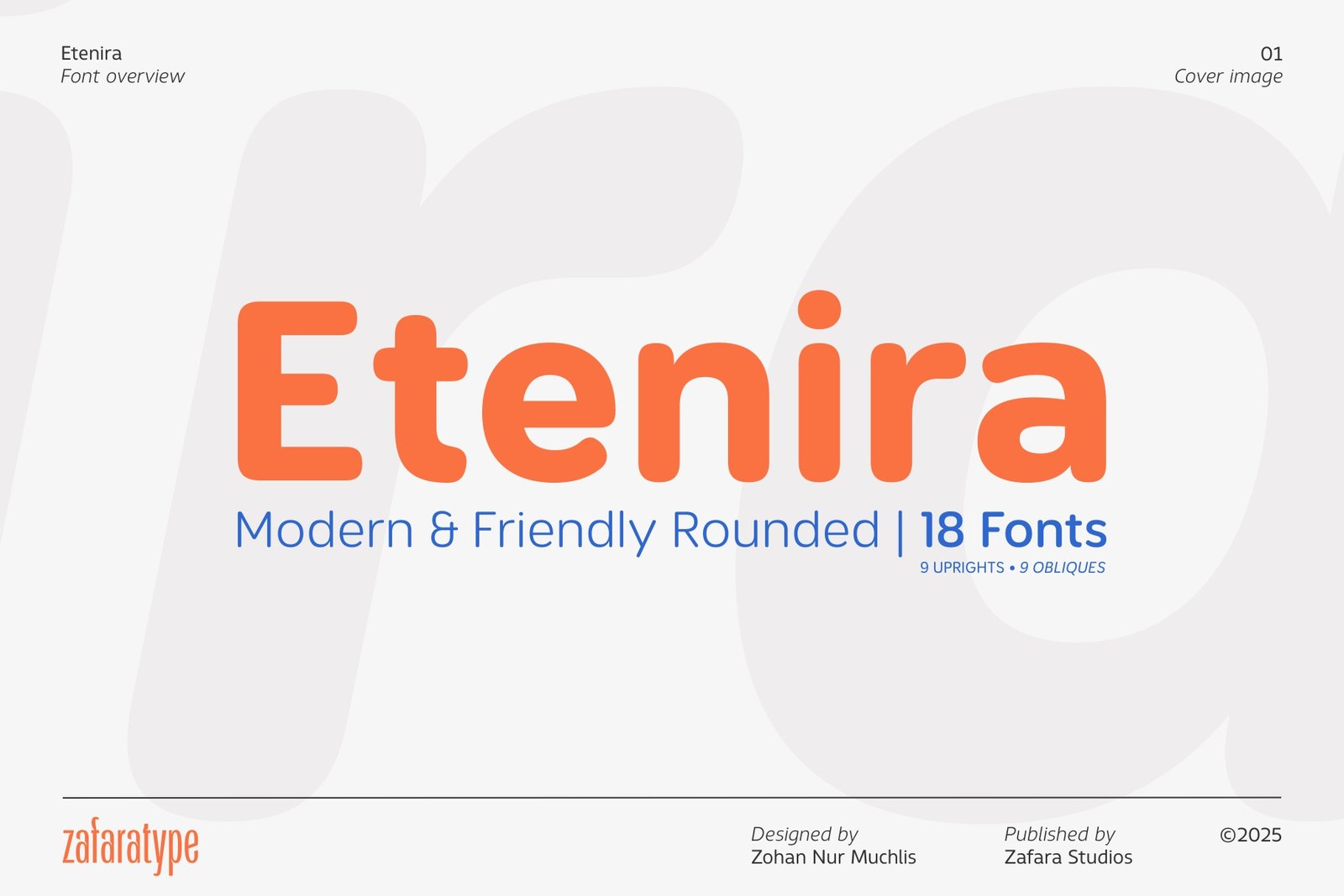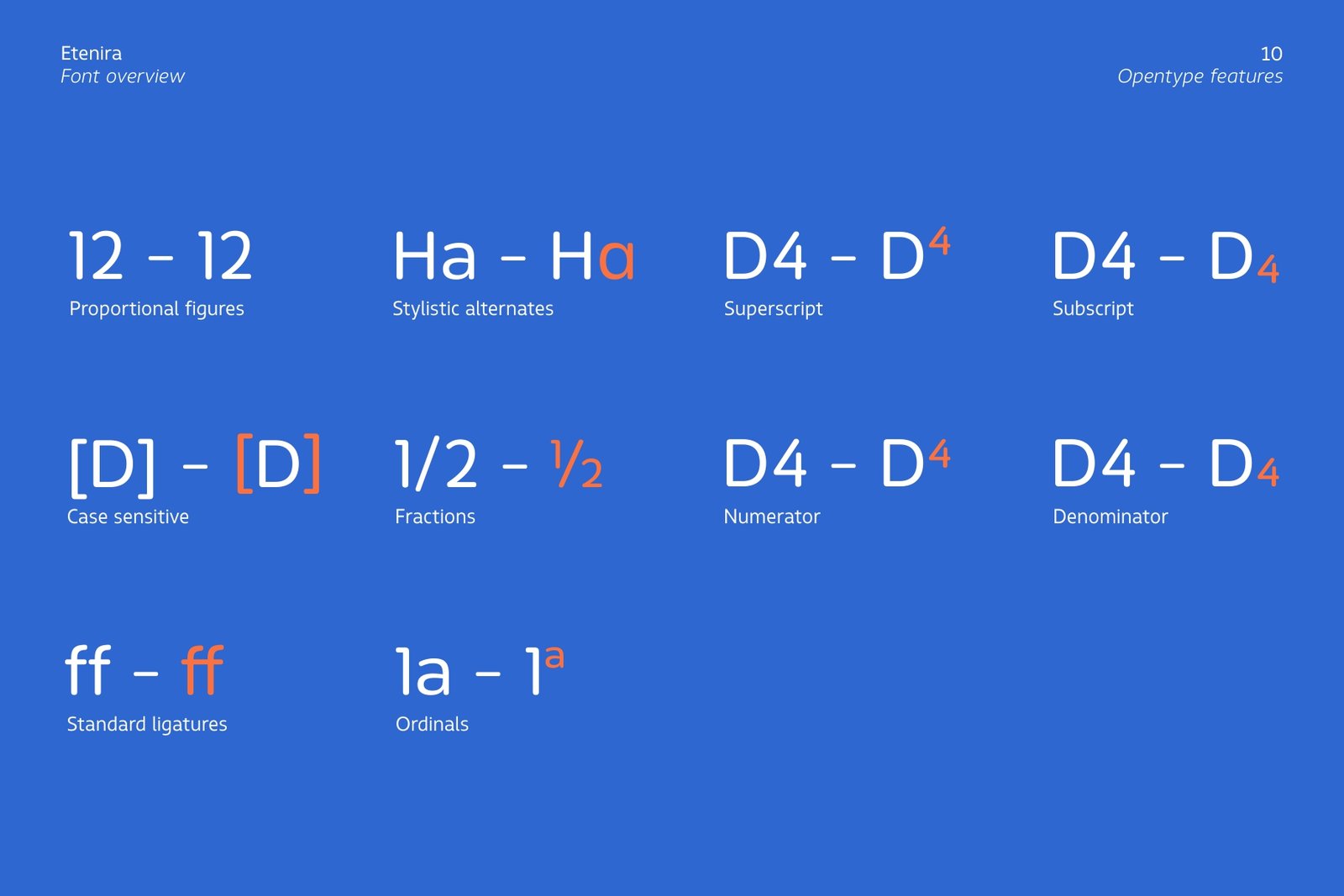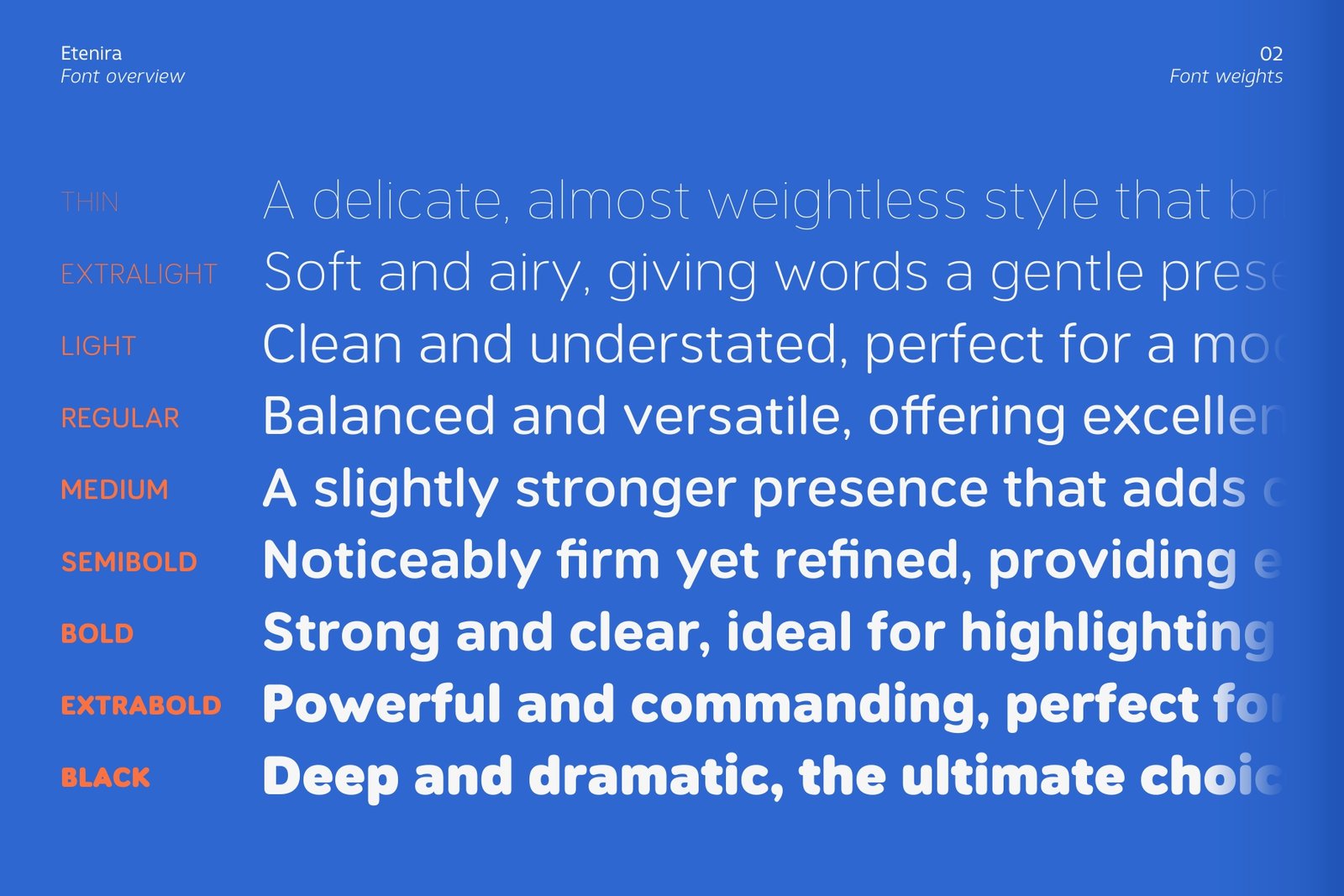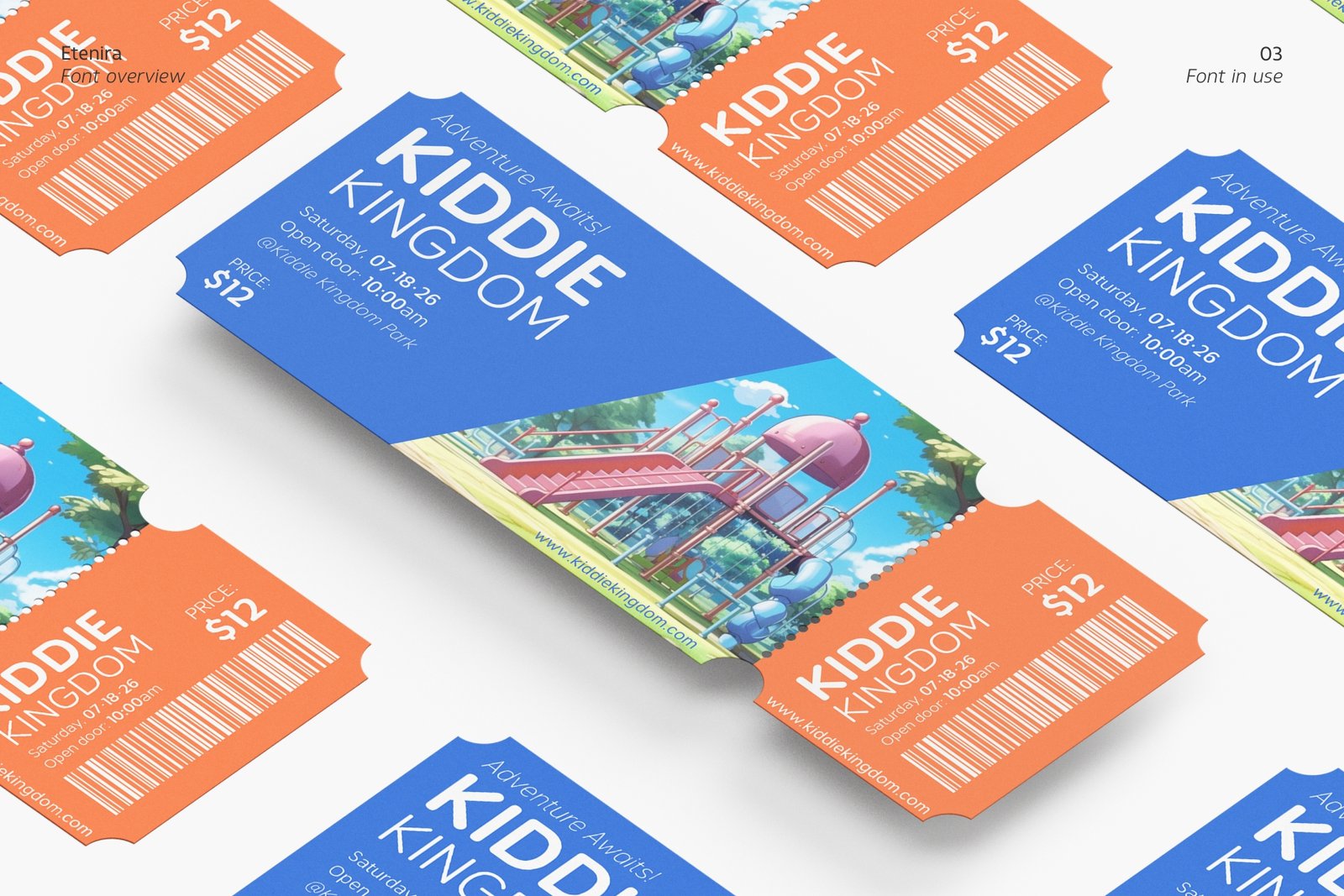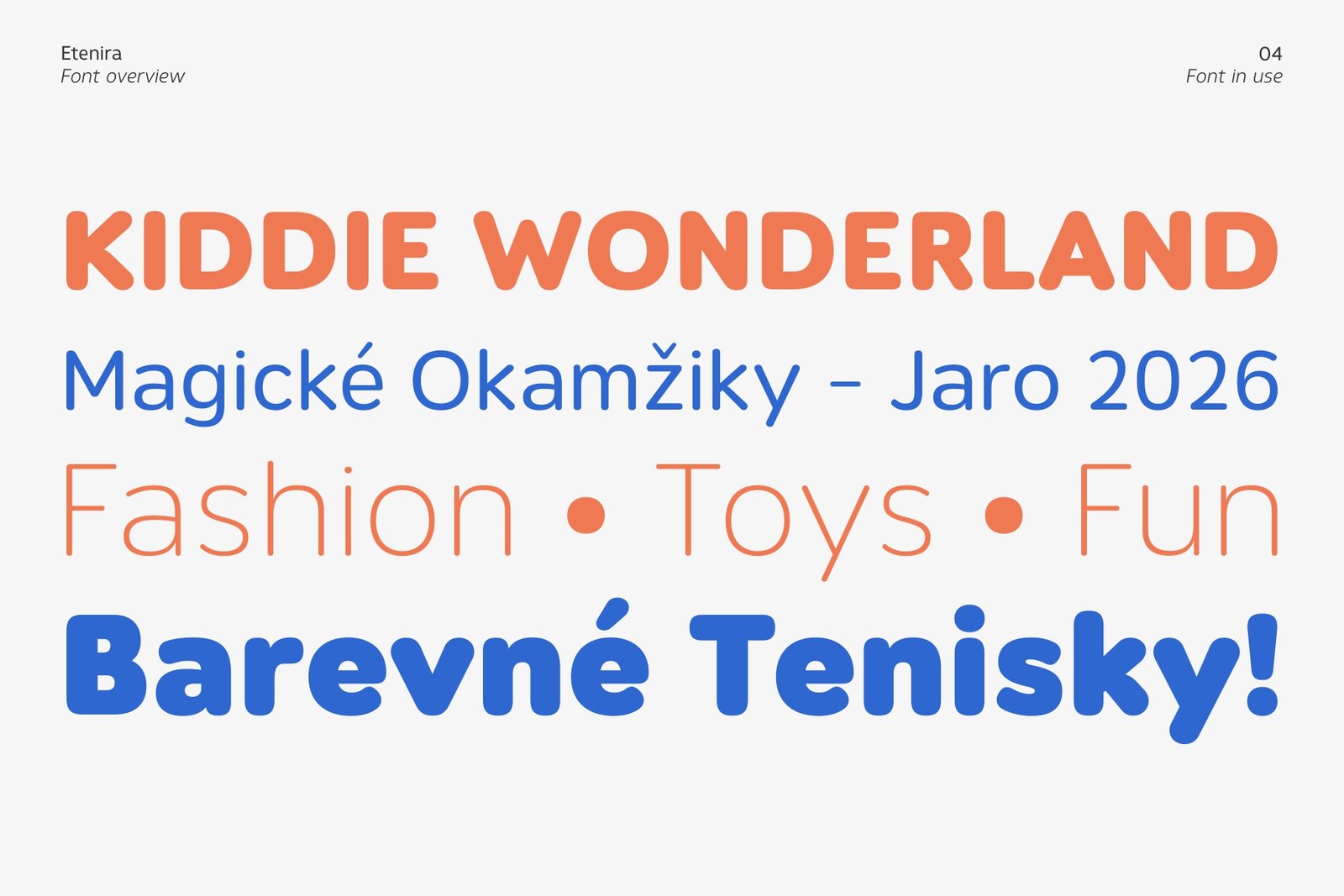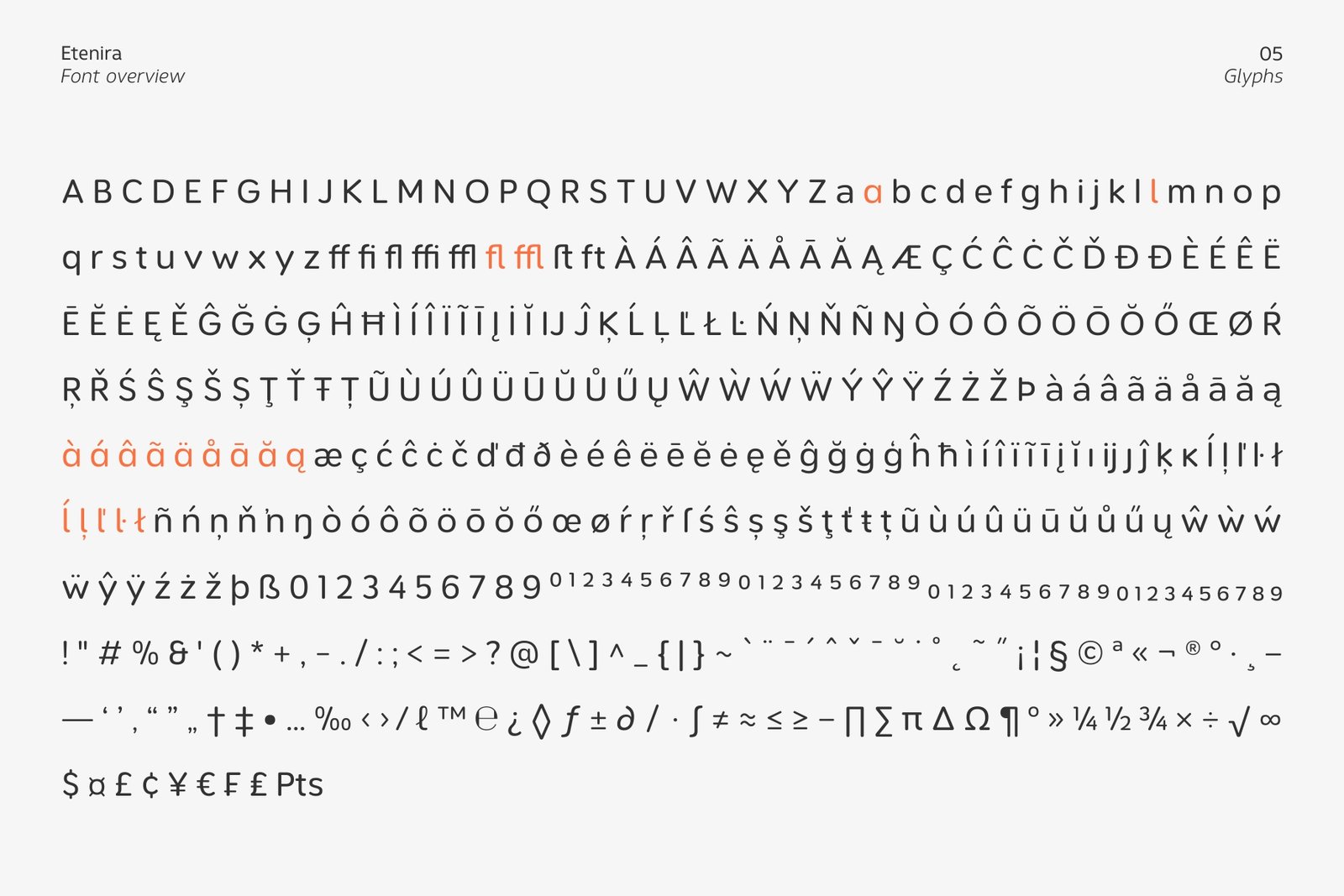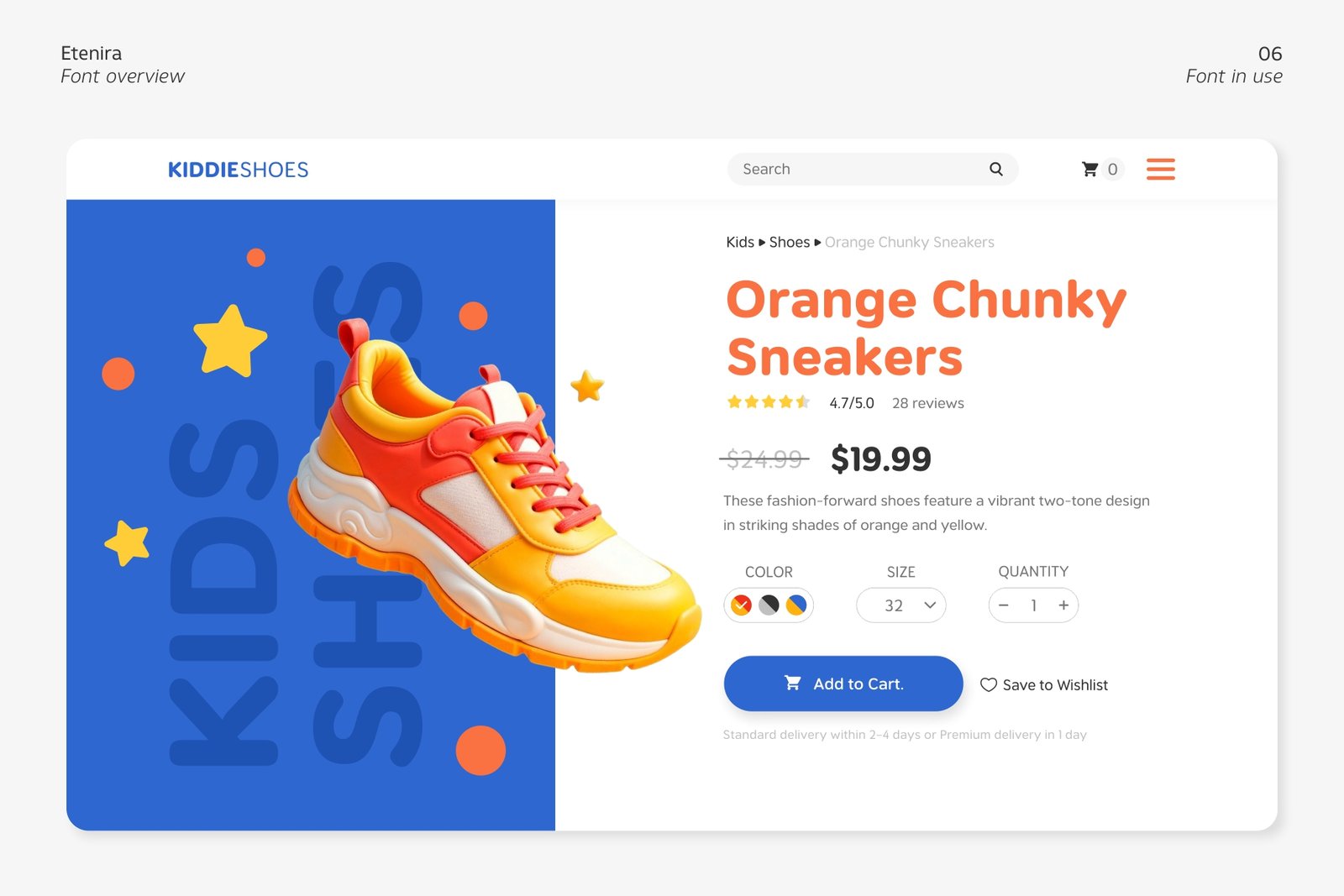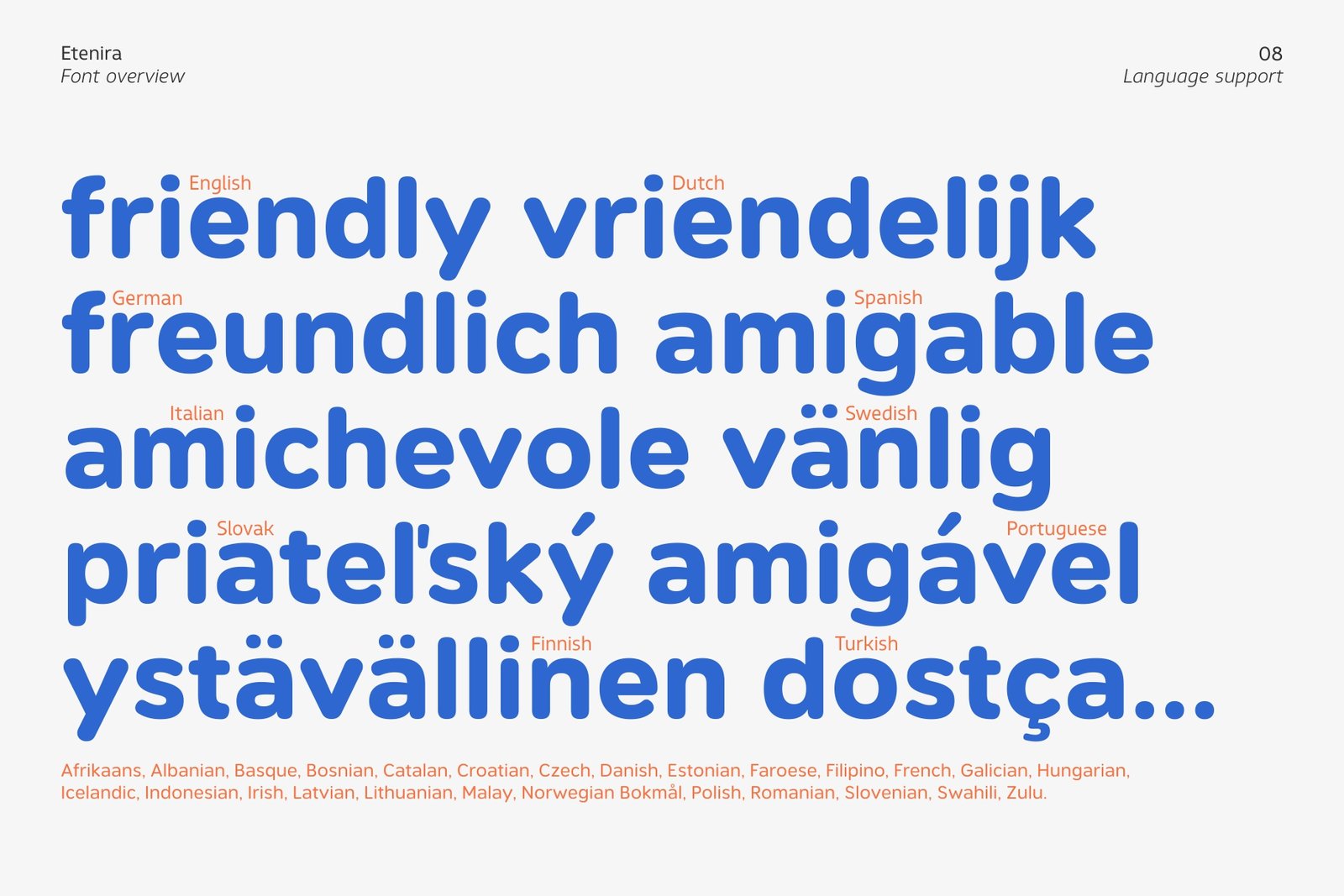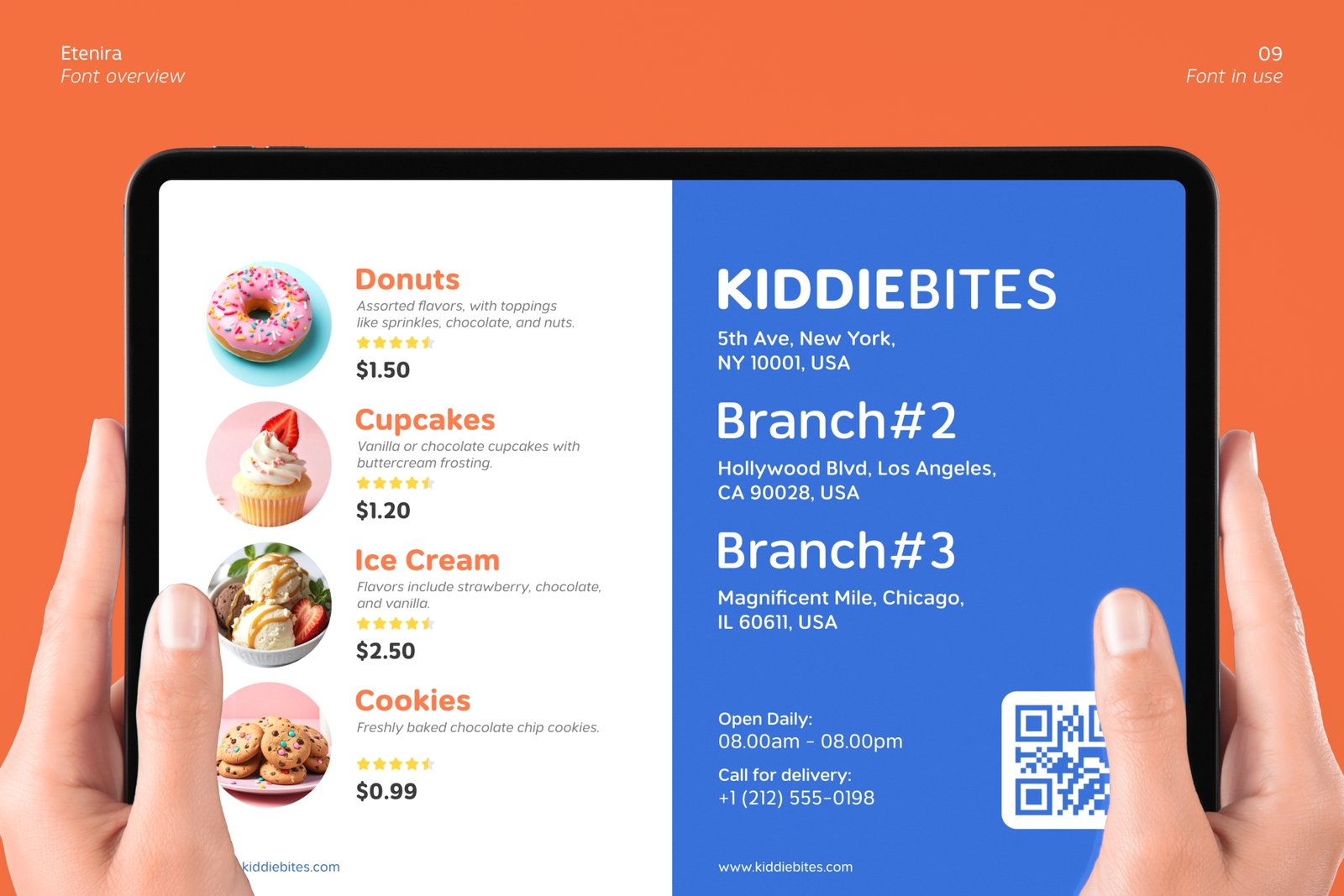
Etenira, a modern and friendly rounded font family with 18 different weights and styles.
A visual breakdown of Etenira font weights, from thin to black.
A vibrant ticket for Kiddie Kingdom featuring the Etenira font, showcasing its use in a playful design.
A colorful poster for Kiddie Wonderland using Etenira font in various weights and colors.
A complete chart of all the glyphs and characters supported by the Etenira font.
Etenira font used on an e-commerce website product page for "Orange Chunky Sneakers".
Etenira font used in a long paragraph, demonstrating readability in body text.
A preview of Etenira font showing support for multiple languages including English, Dutch, German, and Spanish.
Etenira font used on a digital menu for a children's restaurant named Kiddiebites.
A chart of Etenira font's OpenType features like ligatures, fractions, and superscripts.
Etenira is a Modern & Friendly Rounded font family that blends soft curves with balanced proportions, bringing warmth and friendliness to any project. With its clean, contemporary style, it offers versatility for branding, packaging, editorial design, web interfaces, and beyond.
Key Features:
• 18 styles: 9 uprights (Thin to Black) and 9 matching obliques
• 473 glyphs with extended Latin coverage
• Includes uppercase & lowercase, punctuation & math symbols, case-sensitive forms, standard ligatures, localized forms, ordinals, fractions, subscript & superscript, and historical forms
• Supports 36 languages, including Afrikaans, Albanian, Catalan, Croatian, Czech, Danish, Dutch, English, Finnish, French, German, Hungarian, Indonesian, Italian, Malay, Norwegian Bokmål, Polish, Portuguese, Spanish, Swedish, Turkish, Zulu, and more
Etenira is more than just a font; it’s a tool for creating designs that are not only beautiful but also resonate with a sense of comfort and sincerity. Its extensive weight system and broad language support make it a reliable and essential addition to any designer’s toolkit.